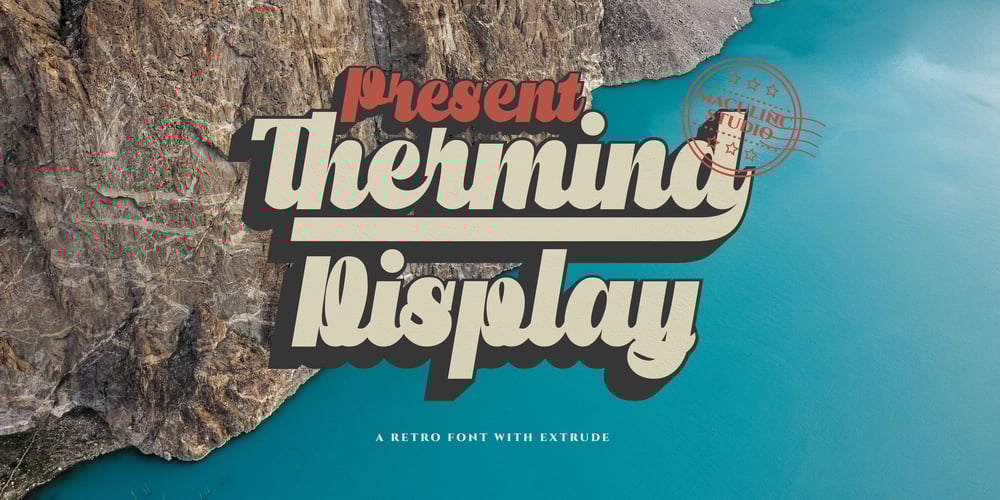
Thermind Font Family was designed by Lukmanul Khikmatullah and published by Maculinc. Thermind contains 2 styles and family package options. Thermind is a bold script typeface with a unique angle and is easy to read so that it is comfortable to use. This font is made with an old feel which is perfect for vintage/retro themed events. You can also use them as logos, badges, packaging, titles, posters, t-shirts/clothing, greeting cards, business cards and wedding invitations and more. Flowing characters are ideal for crafting a compelling message to your taste.mix and match with many alternative characters to suit your project. It will be more interesting if you add Extruded Fonts and alternatives.